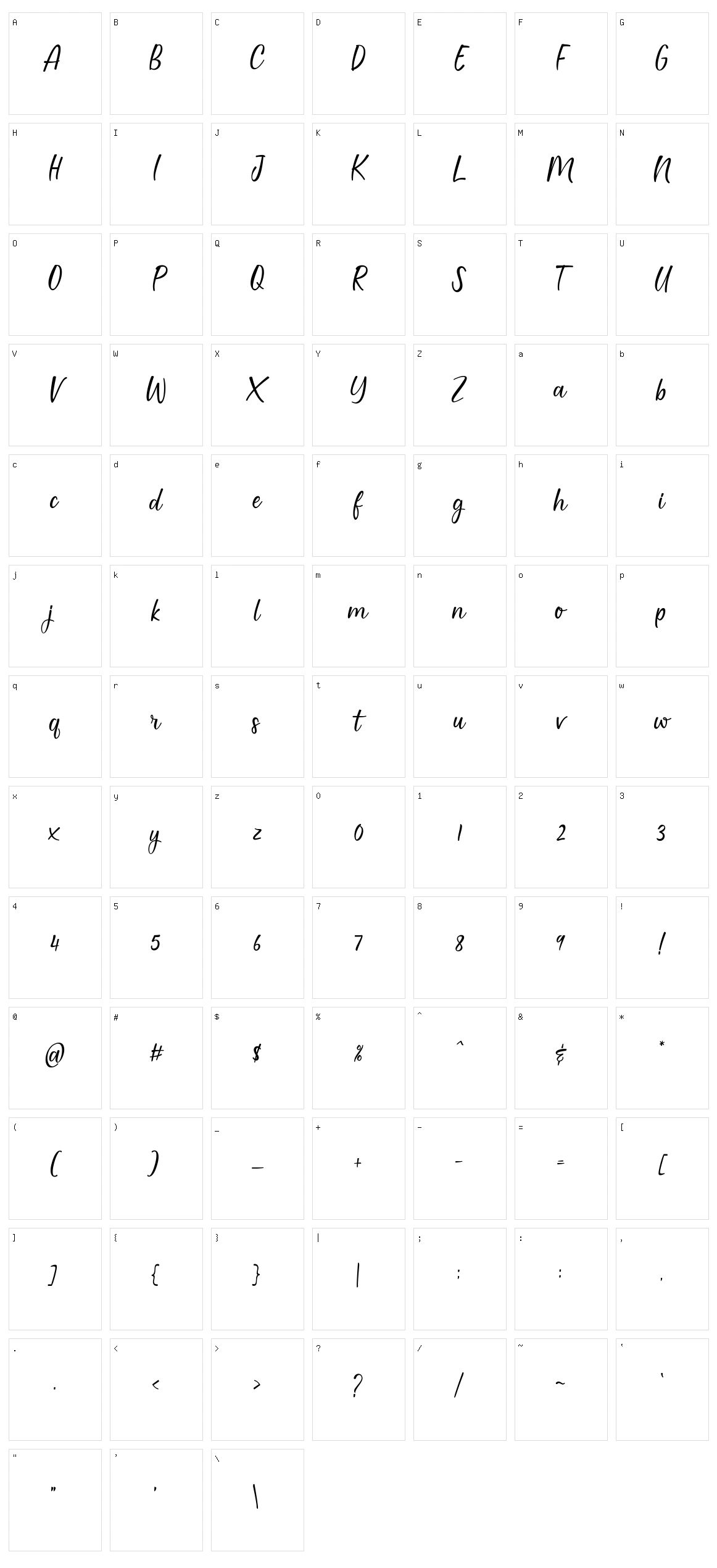
The free font Gallilea is carefully designed by Gilar Studio, showcasing a thoughtful balance of creativity and usability and falls under the Script font style. When you download the ZIP file, it contains only 20.45 KB of font files, making it lightweight and quick to download. Please review the license details below to understand permitted usage and distribution rights. If license information is not available, we recommend using this font for personal projects only or contacting the author directly for commercial usage permissions.